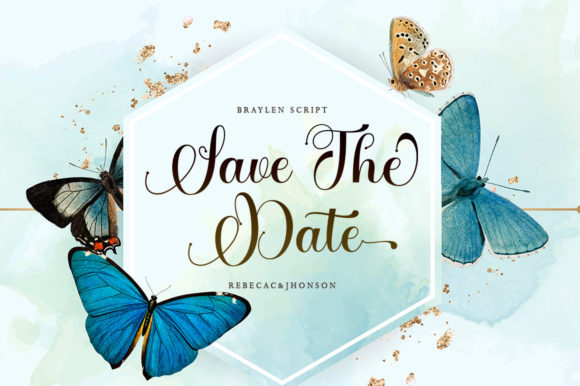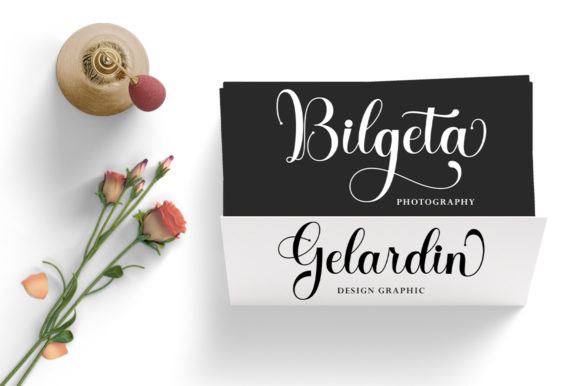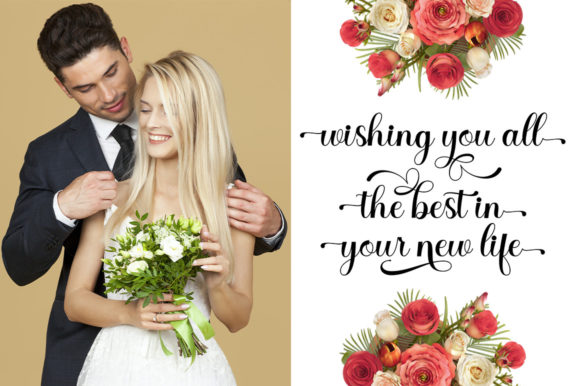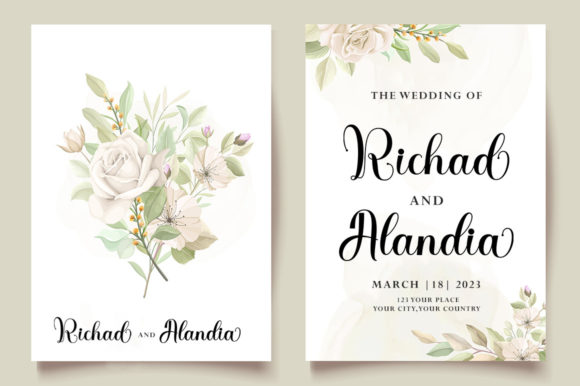
About Braylen Script Font
Braylen Script is a new modern script font with an irregular baseline. Trendy and stylish, the Braylen Script looks lovely on wedding invitations, thank you cards, quotes, greeting cards, logos, business cards and more. This font is PUA encoded which means you can access all of the glyphs and swashes with ease!